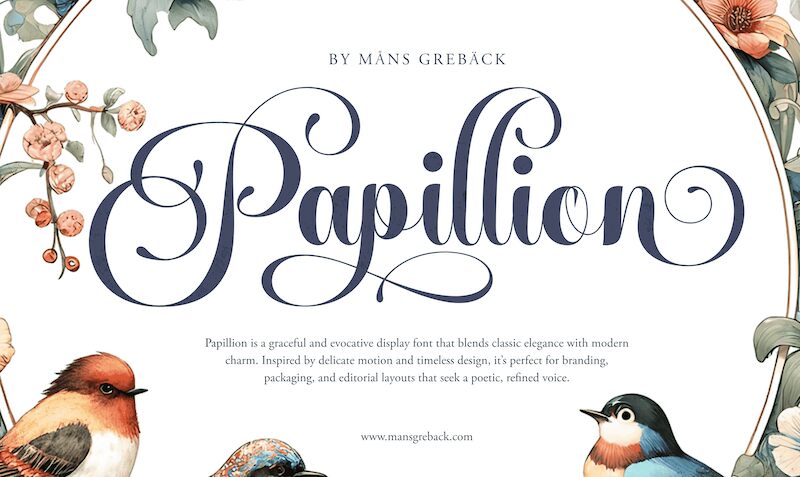
Papillion font
Papillion
Papillion is an elegant and ornamental script, infused with the spirit of French sophistication and theatrical flair. With its refined curves and decorative loops, it evokes the flutter of butterfly wings in motion, balancing formal structure with expressive movement.